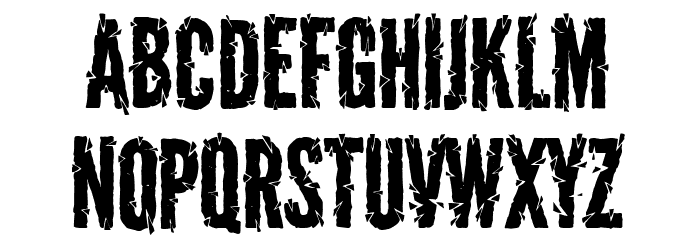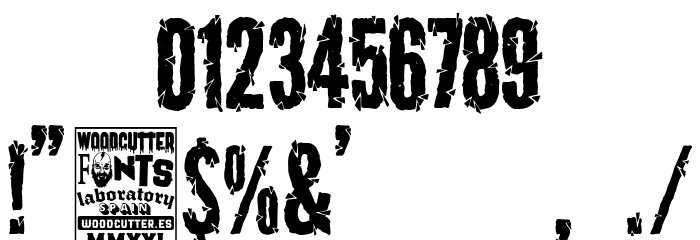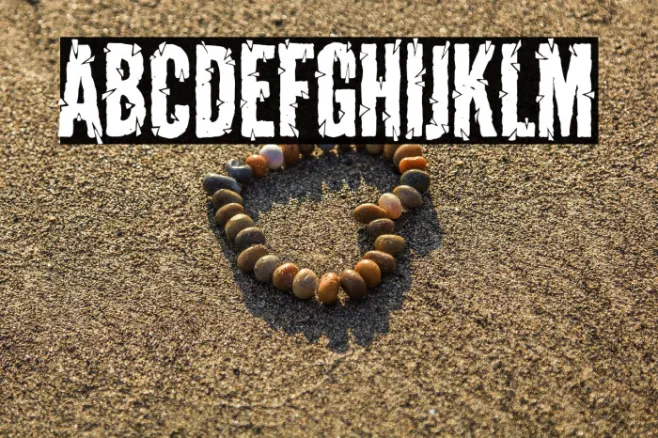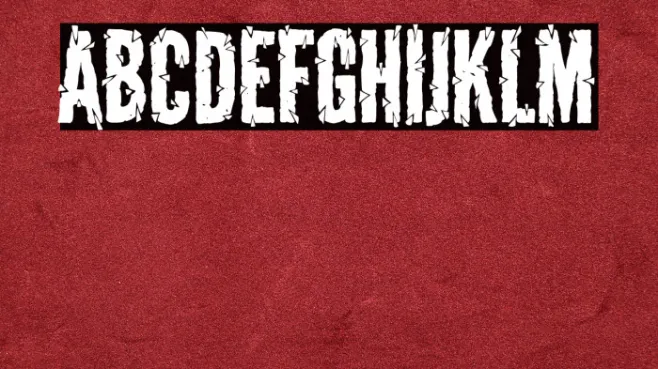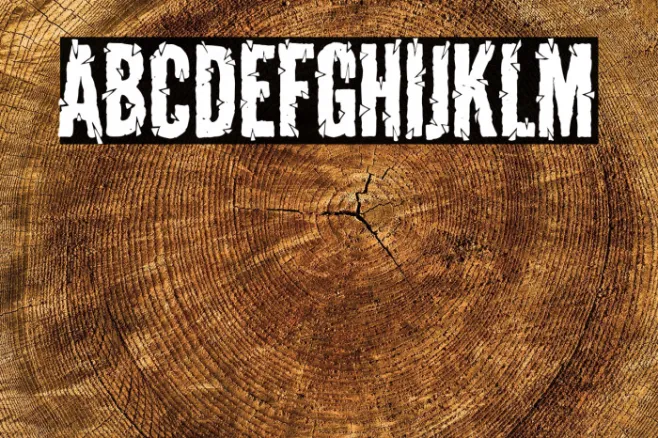
Poster Break Font
This font features a rugged, distressed appearance with a bold and impactful style. The characters are designed with a rough, textured effect that gives them a weathered and worn look, reminiscent of torn paper or cracked surfaces. The uppercase letters are prominent and commanding, while the lowercase letters maintain the same distressed aesthetic. Numbers and special characters are equally bold and textured, ensuring consistency across all elements. This font is ideal for projects that require a strong, edgy, and rebellious vibe.
- Font: Poster Break
- Proposed Projects: Ideal for music album covers, movie posters, event flyers, and any design needing a bold, edgy look.